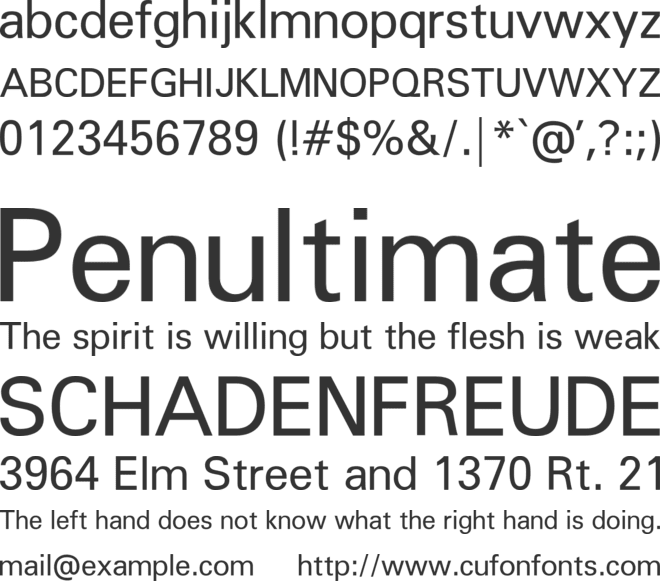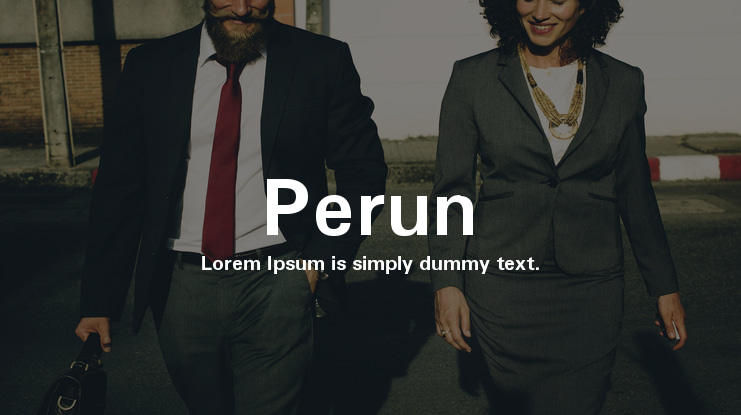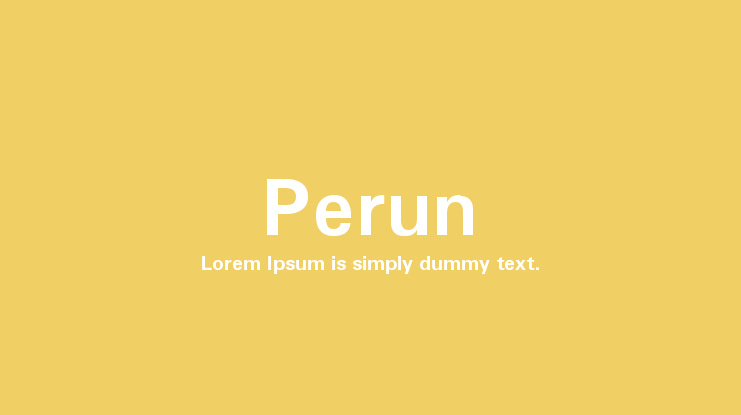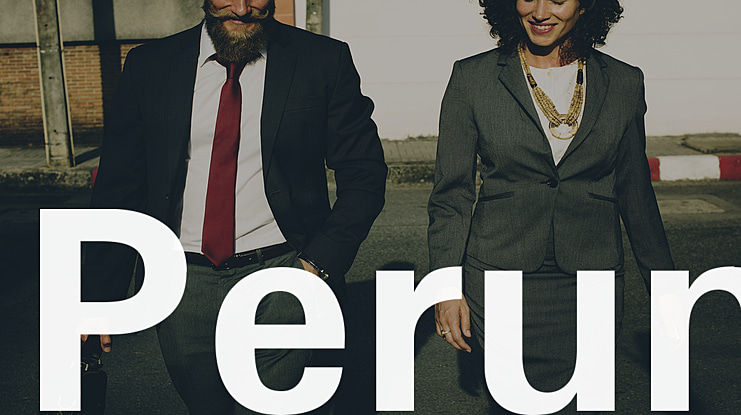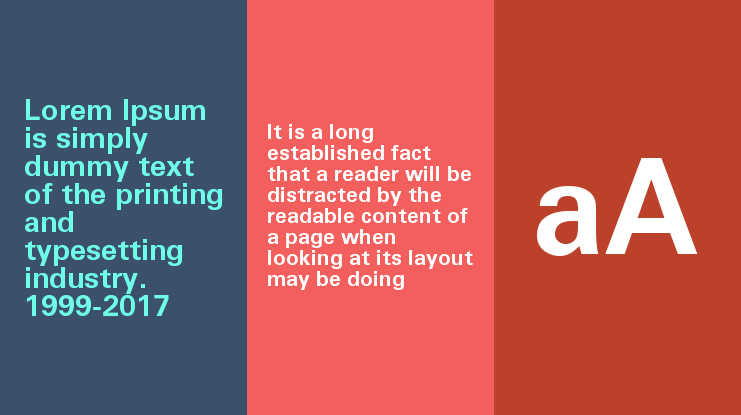
Perun is a a sans-serif typeface. It is derivated from FreeUniversal font family with OFL (SIL Open Font License) and SIL Sophia font. FreeUniversal and SIL Sophia are neo-grotesque typefaces, which are in the style of Adrian Frutiger's Univers. The project Perun is ongoing. Perun will be extended in its next releases to cover the styles Bold, Italic, Bold Italic. Perun font family contains also two models of Cyrillic glyph. The base range of the Cyrillic glyphs (uni0410:uni044F) represents the modern Bulgarian letter-form model. The traditional Cyrillic letterform model is included as a local feature for Russian language and as a Style Set 01. In that way everyone could choose preferable Cyrillic model for typesetting.